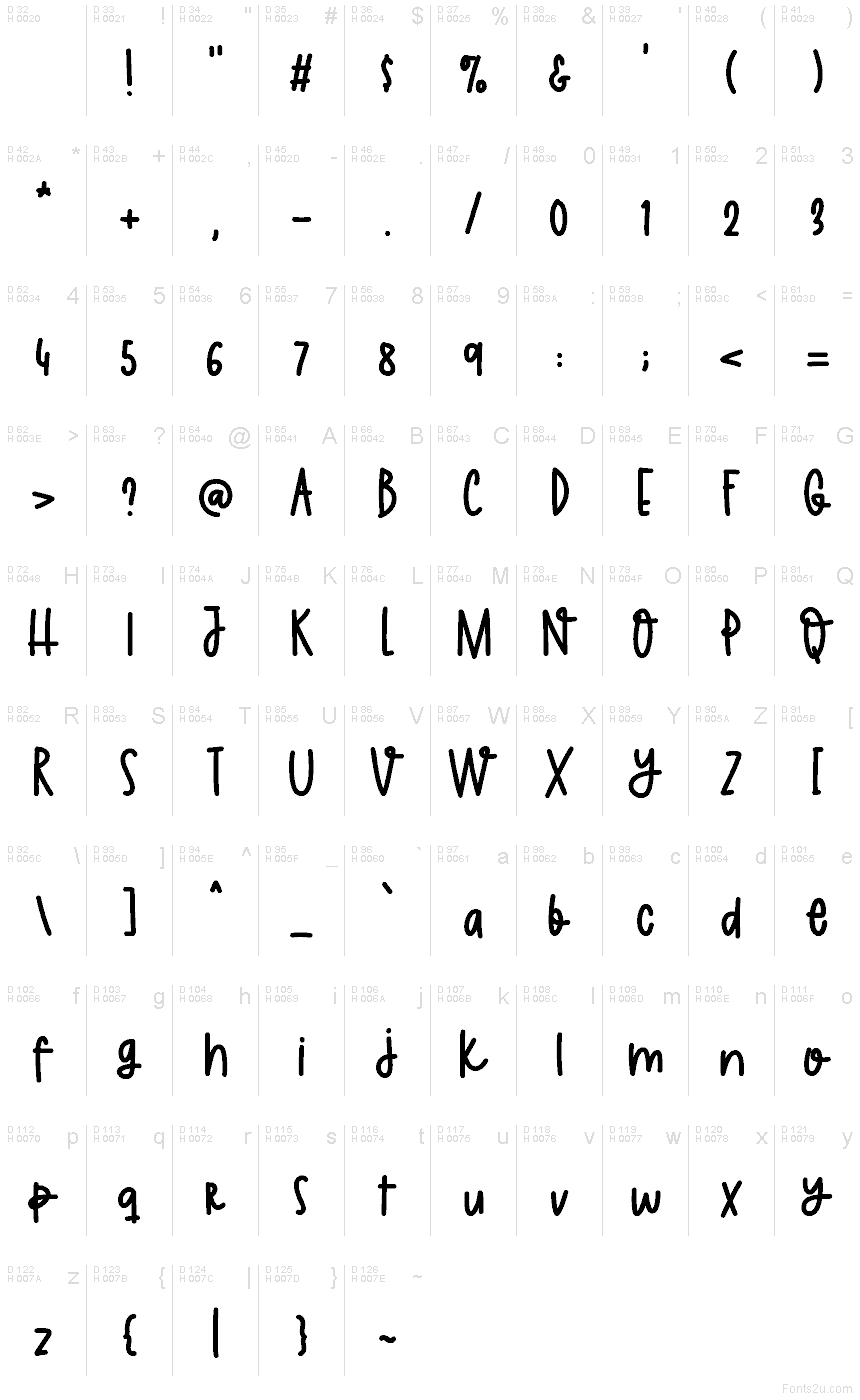
Skyhigh
Skyhigh font by Dm Letter Studio - Dimas Prasetyo is a free handwritten font. It solves the “cute but readable” dilemma with smooth monoline strokes, a high x‑height, and rounded terminals that keep every word plush and approachable. The letters link with an easy rhythm—enough bounce to feel lively, but tight control so lines stay clean and uncluttered.
Using Skyhigh, headlines pop without shouting, and short phrases carry a friendly, human tone. It shines on bakery or café logos, kid-focused branding, packaging, stickers, greeting cards, and social posts. This free font loves white space; set it larger for maximum charm, and pair with a clean geometric sans to handle supporting text.